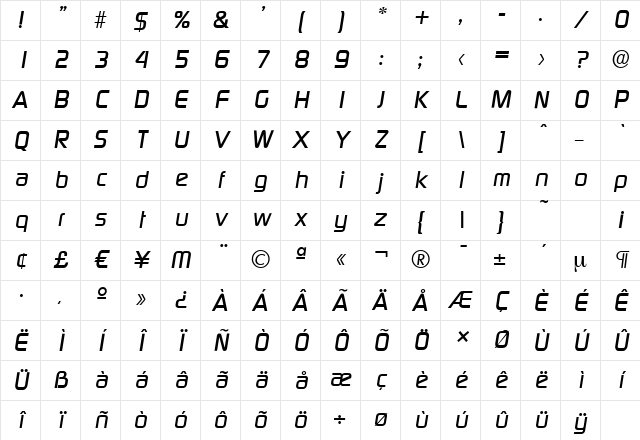
DigitalSerial BoldItalic
Complete DigitalSerial BoldItalic glyph index. Displaying only characters natively supported by DigitalSerial BoldItalic font.
Design Context for DigitalSerial
DigitalSerial has a distinctly futuristic character, with geometric precision and clean angles that feel at home in technology, gaming, and sci-fi contexts. The slanted form adds forward momentum and visual energy. Its bold stroke weight gives it real presence on the page.